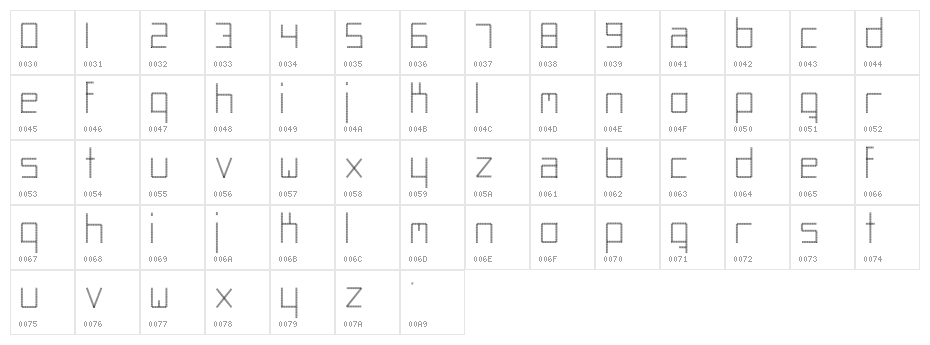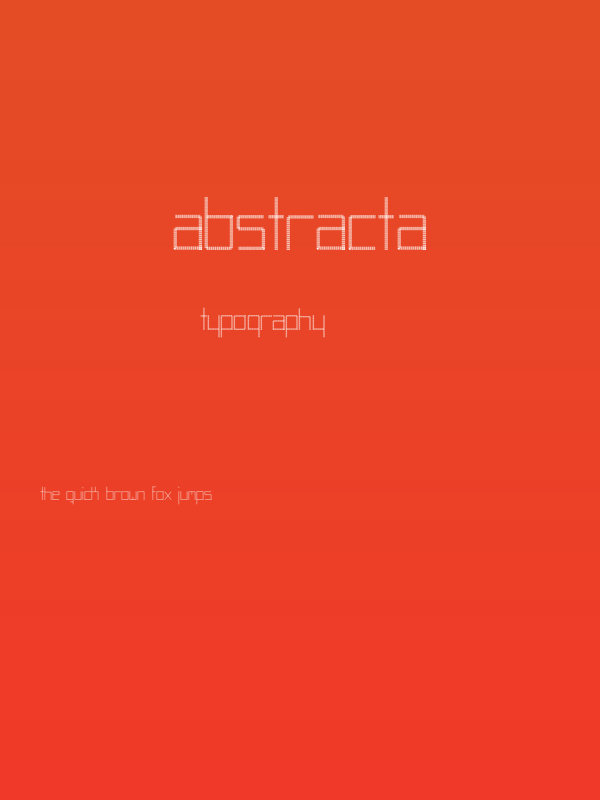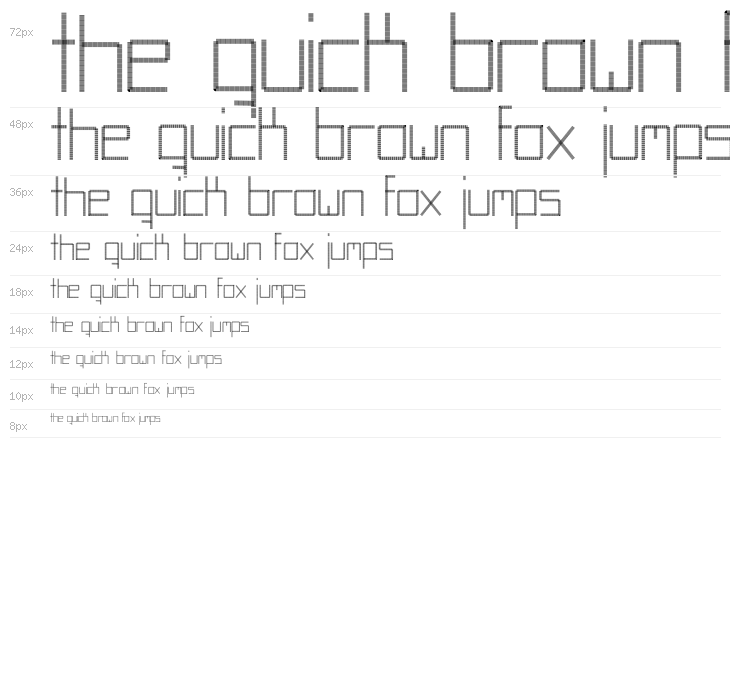
Abstracta Font
Abstracta Description
This font features a unique, linear design composed of evenly spaced horizontal lines that form each character. The letters and numbers are constructed with a consistent pattern, giving them a modern, digital appearance. The uppercase and lowercase letters maintain a uniform height, contributing to a cohesive look. The font's geometric structure is both striking and minimalistic, making it suitable for contemporary design projects. The special characters are enclosed in rectangular outlines, adding a distinct touch to the overall style. This font's precise and clean lines make it ideal for projects that require a futuristic or technological aesthetic.
| Use Case | Logos, Headlines, Digital interfaces |
| Proposed Projects | Ideal for tech-related branding, digital interfaces, modern posters, and futuristic design themes. |